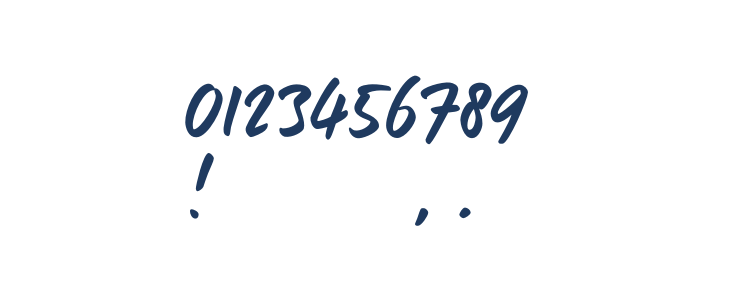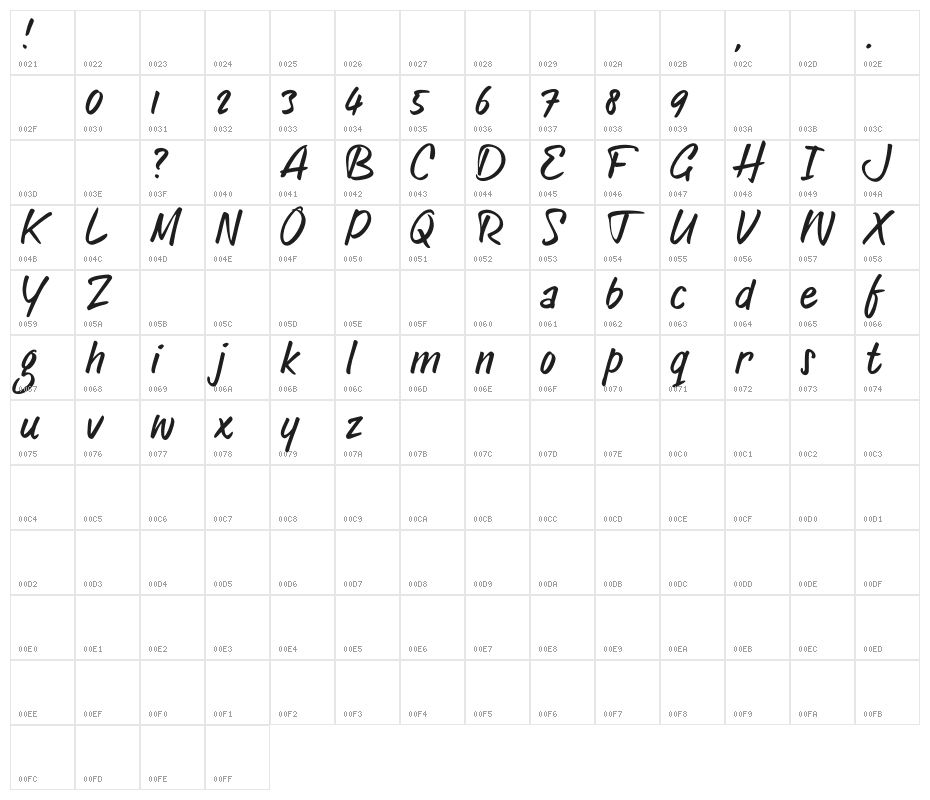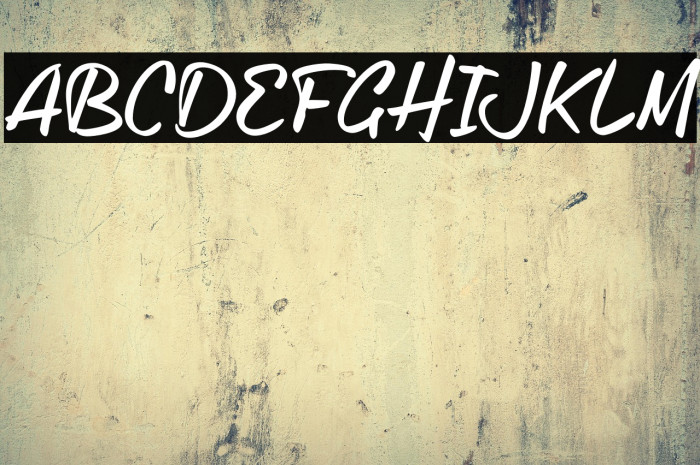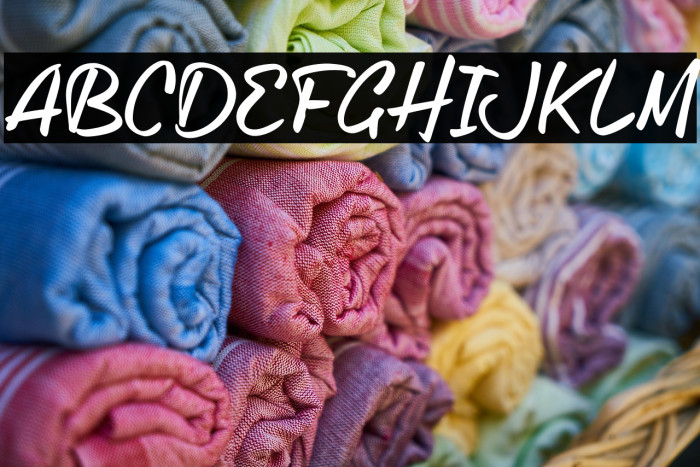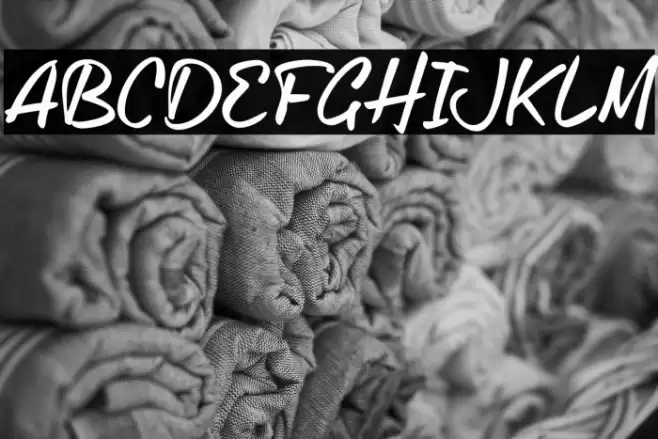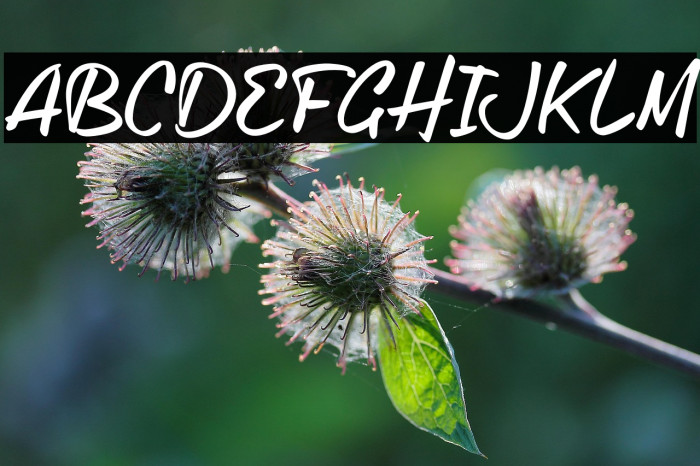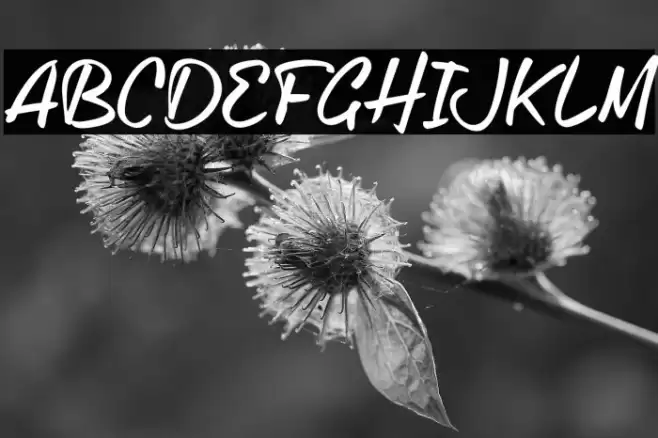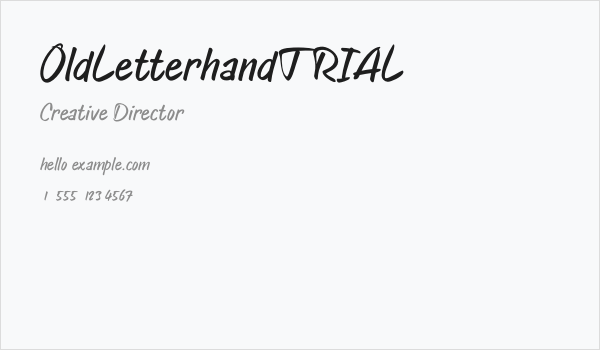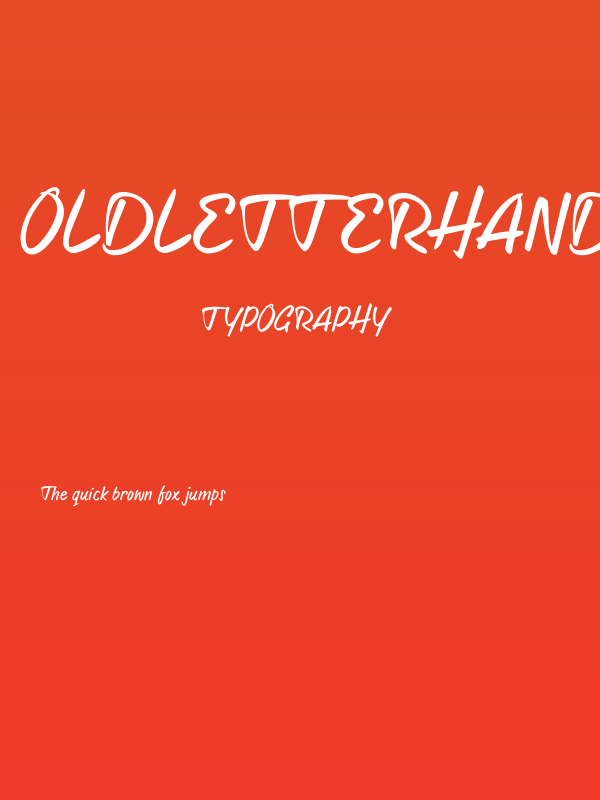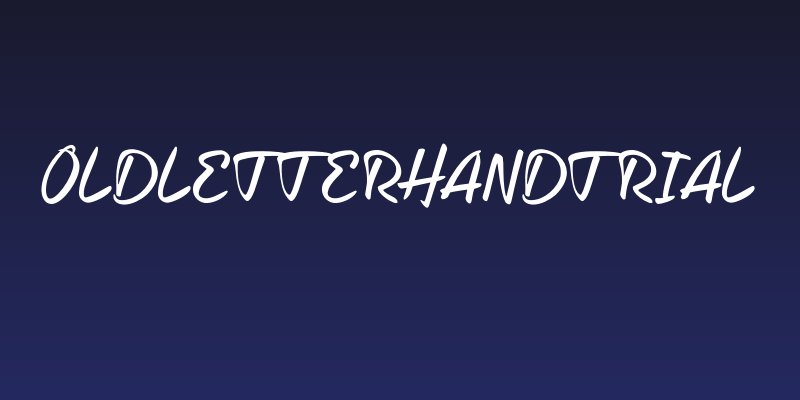
OldLetterhandTRIAL Font
OldLetterhandTRIAL Description
This font exudes a lively and dynamic handwritten style, characterized by its fluid and slightly slanted letterforms. The strokes are bold and confident, with a consistent thickness that gives the font a robust appearance. The uppercase letters are slightly larger and more pronounced, while the lowercase letters maintain a smooth and flowing connection, enhancing the script-like quality. The numerals are well-integrated, matching the overall aesthetic with their rounded and expressive shapes. Special characters like the exclamation mark and ampersand are crafted with the same energetic flair, making them stand out. This font is ideal for projects that require a personal touch or a sense of movement and creativity.